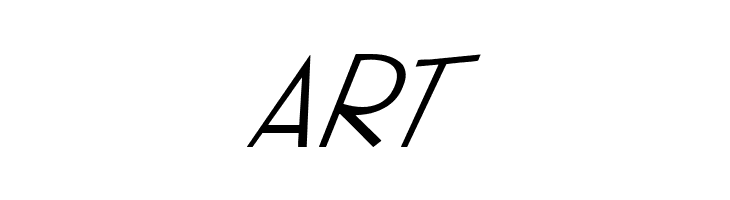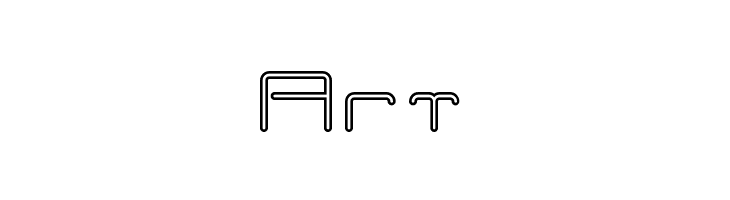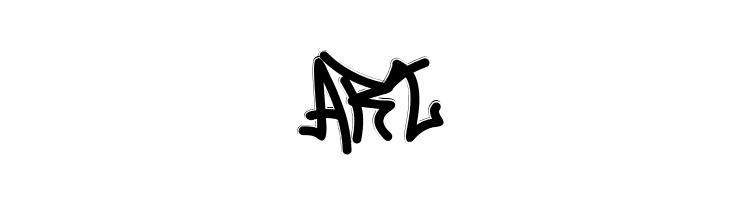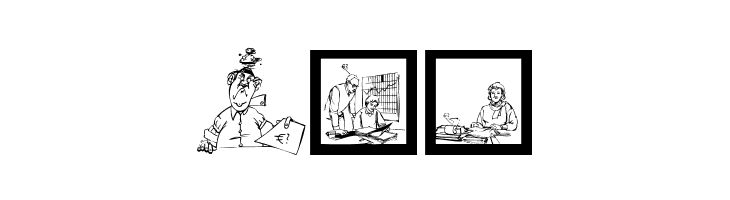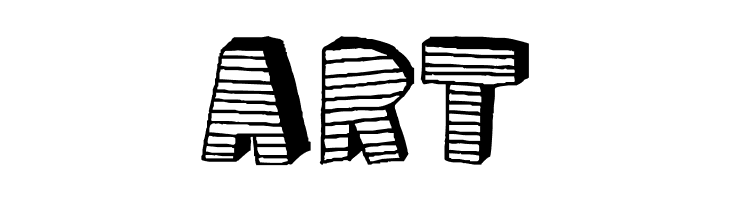
A dynamic italic font with smooth, slanted letterforms and a modern edge.
A graffiti-inspired font with bold, dynamic strokes and an urban flair.
A bold, hand-drawn font with a textured, scribble-like pattern.
A bold, playful font with a 3D striped effect and strong outlines.
A futuristic, tubular font with geometric and playful elements.
A cartoon-style illustrative set representing characters with humorous drawings.
A dynamic, cursive script font with elegant, flowing strokes.